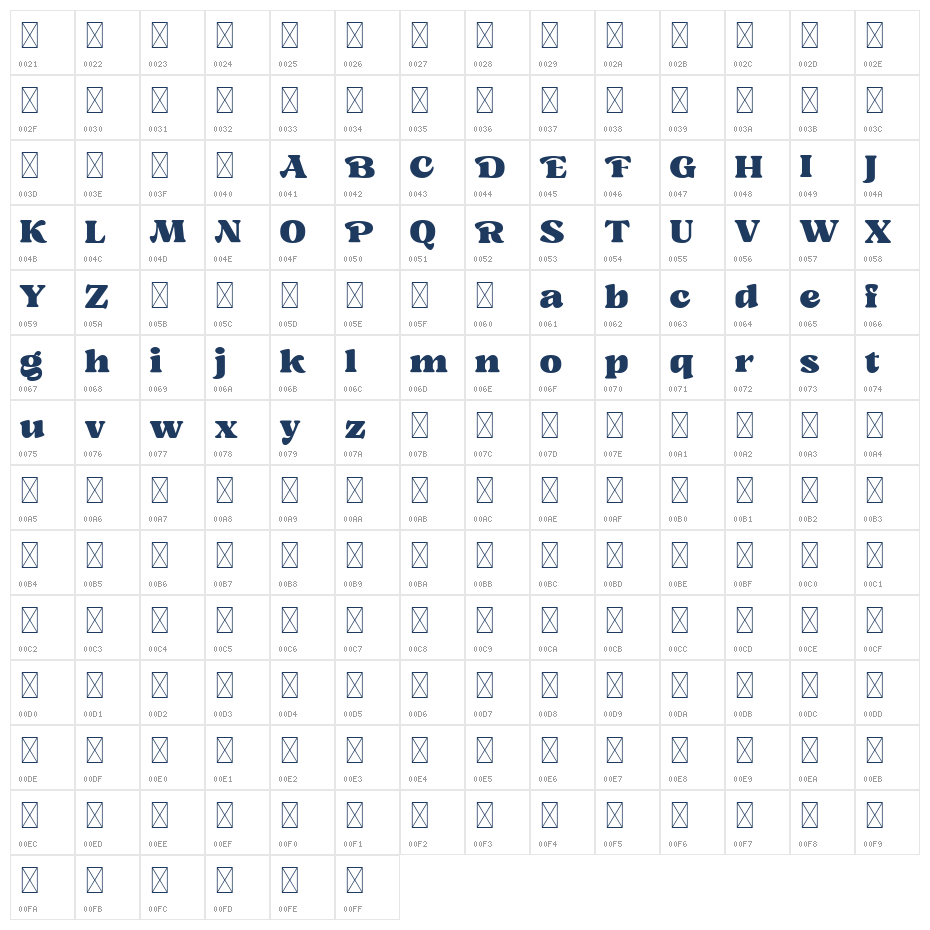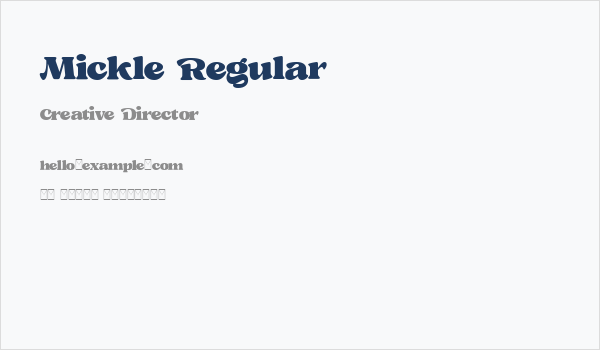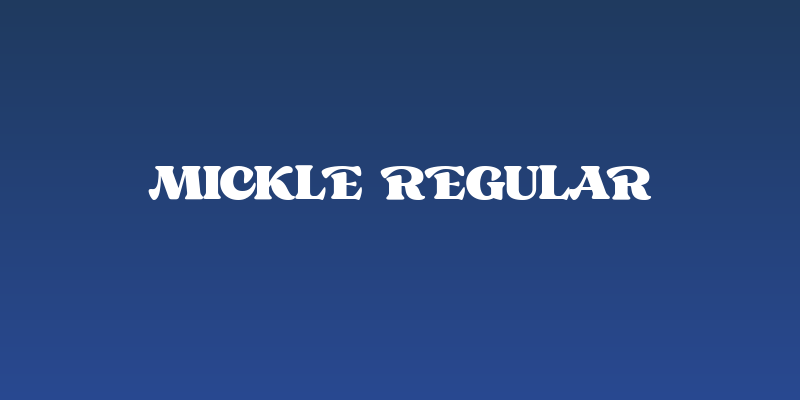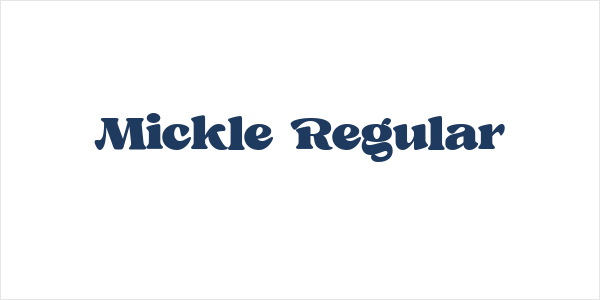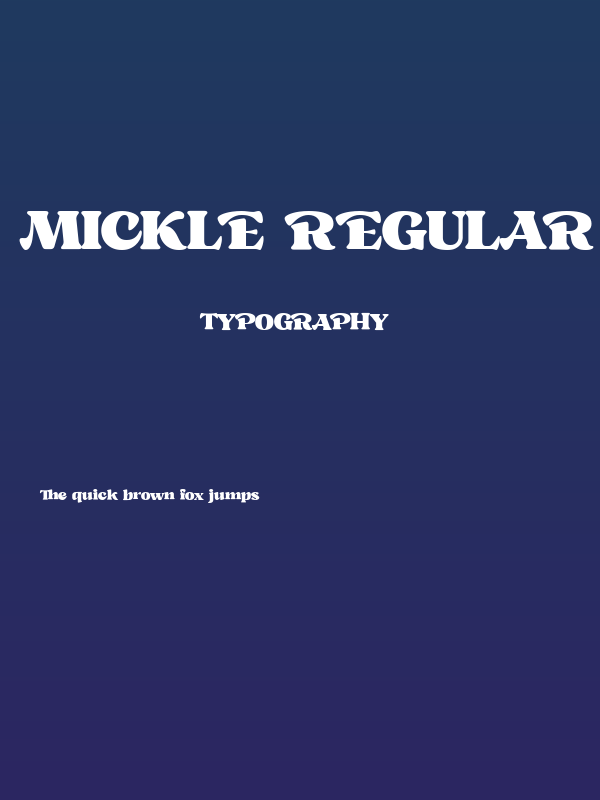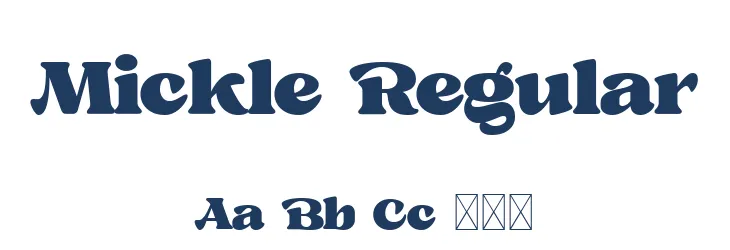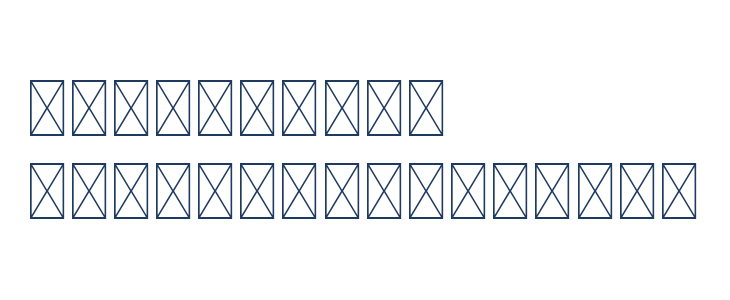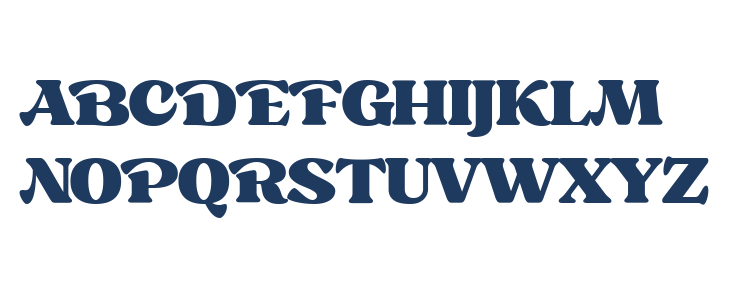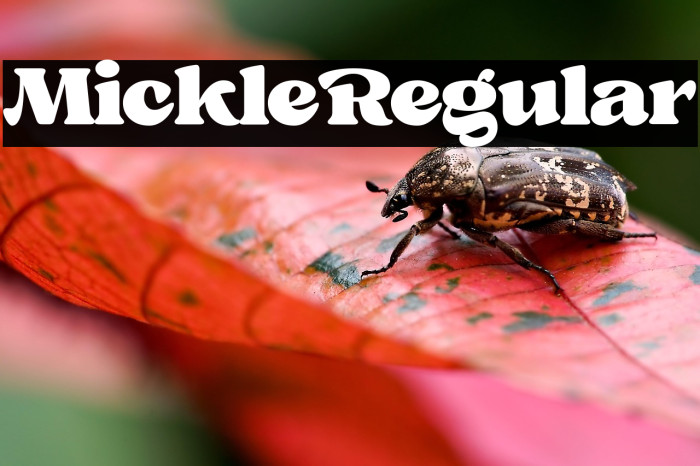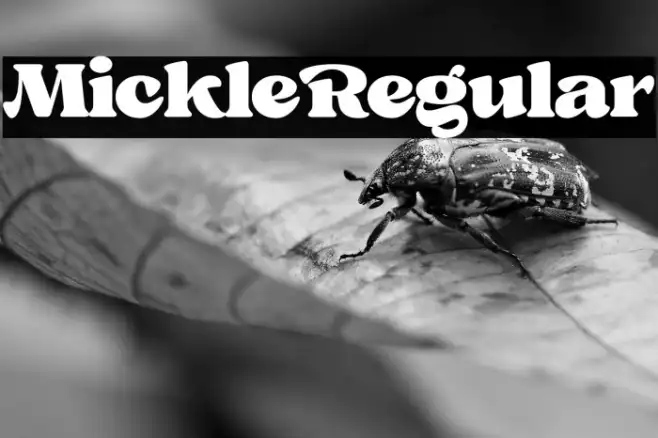
Mickle Regular Font
Mickle Regular Description
A bold, decorative serif font with a vintage style, characterized by thick strokes and ornate details.